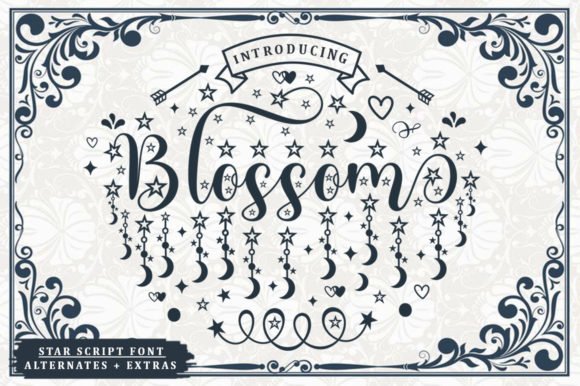
Discover the Elegance of Blossom Font Font
There’s nothing quite like the thrill of a creative breakthrough. You’re working on a project, and suddenly, everything clicks into place. The words flow effortlessly, and the design starts to take shape. It’s moments like these that make being a designer so rewarding. And, as I found myself lost in the world of typography, I stumbled upon a font that captured the essence of this feeling: Blossom Font Font.
Blossom Font Font is a delicate script font that exudes elegance and sophistication. Its intricate details and PUA encoding make it a valuable asset for designers looking to add a touch of class to their work. With Blossom Font Font, you can create beautiful, high-end designs that are sure to impress. Whether you’re working on a wedding invitation, a luxury brand logo, or a romantic novel cover, this font is sure to make your work shine.
Blossom Font Font Key Features
- Unique Characteristics: Whimsical, hand-drawn style with intricate details and floral motifs
Blossom Font Review
Overall, I think the Blossom Font is a lovely addition to any design project. Here’s what I like about it: ✨ The soft, rounded edges and delicate petals make it perfect for creating a whimsical and feminine feel. ✨ The font is highly customizable, allowing you to adjust the size, color, and even the texture of the blossoms. ✨ The wide range of languages supported ensures that it’s a great choice for global projects.
Features and Specifications
- Soft, rounded edges and delicate petals
Tips: Use the Blossom Font for titles and headings to add a touch of elegance to your designs. Experiment with different font sizes and colors to create visual interest.
Tips: Use the Blossom Font for creative projects that require a whimsical touch. Experiment with different font sizes and colors to create unique effects.
Tips: Use the Blossom Font for presentations and documents that require a touch of sophistication. Experiment with different font sizes and colors to create visual interest.
The Blossom Font is ideal for:
– Baby shower invitations and decorations
– Spring and summer-themed designs
– Creative projects that require a whimsical touch
Q: What is the recommended font size for using the Blossom Font Font?
The recommended font size for the Blossom Font Font is between 12 and 24 points. However, this may vary depending on the specific application, design requirements, and readability needs. You can experiment with different font sizes to achieve the desired visual effect.